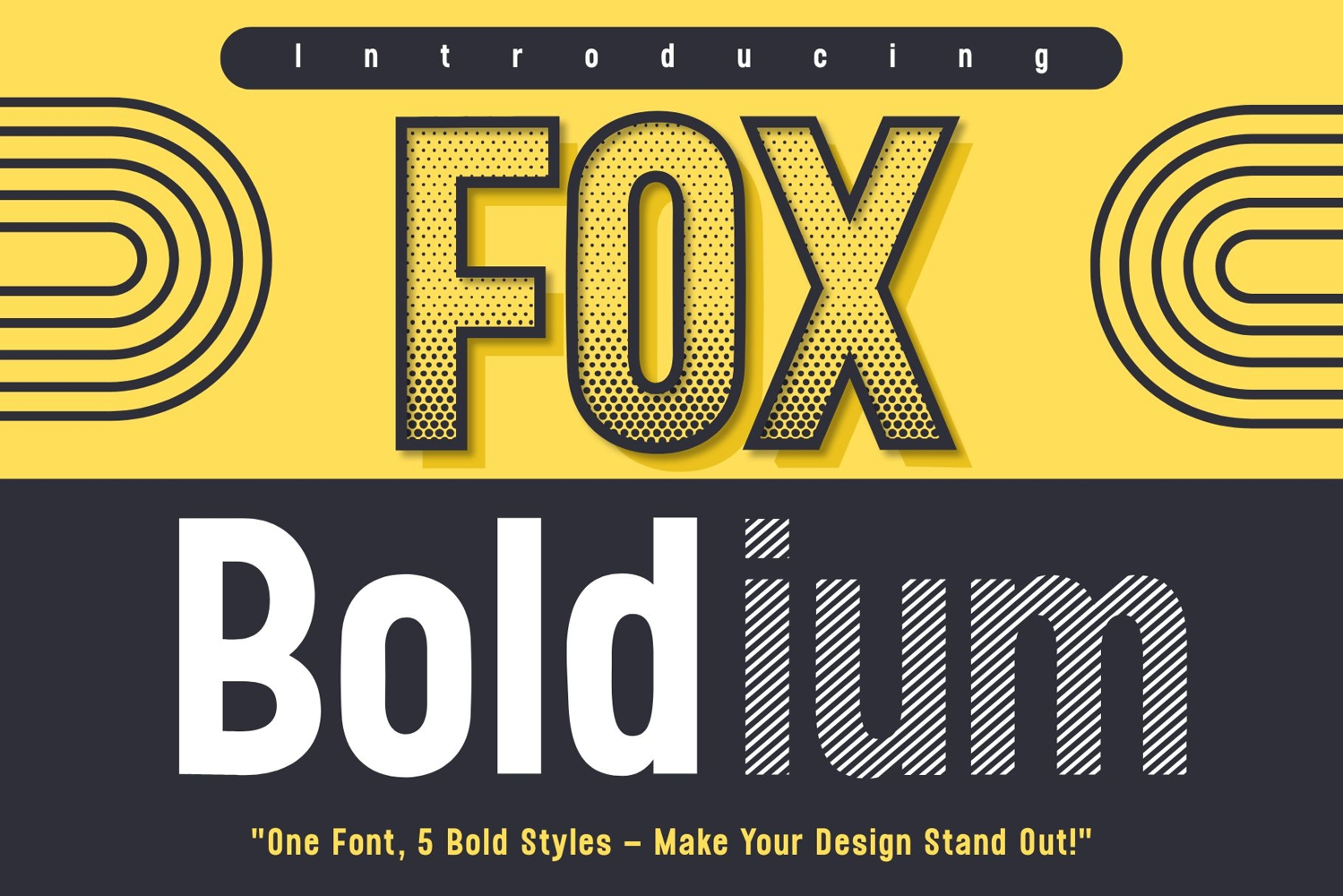
Fox Boldium: 5 Font Styles
Fox Boldium Shadow
Fox Boldium Spot
Fox Boldium
Fox Boldium Outline
Fox Boldium Strokes
Fox Boldium is a striking display font that comes with 5 bold styles to make your design stand out in any project. Its playful yet powerful look is perfect for eye-catching headlines, posters, branding, logos, and modern advertising.
This font family includes Regular, Strokes, Spot, Outline, and Shadow styles—allowing you to mix, match, and layer for endless creative combinations. Whether you’re designing retro-inspired graphics, bold product packaging, or dynamic social media visuals, Fox Boldium brings instant impact and personality to your work.
With its clean construction and strong versatility, this font is designed to grab attention and deliver your message with style and confidence.
Perfect For:
☘︎ Posters & Flyers
☘︎ Retro & Modern Branding
☘︎ Bold Headlines & Titles
☘︎ Product Packaging
☘︎ Social Media Graphics
☘︎ Creative Merch Design